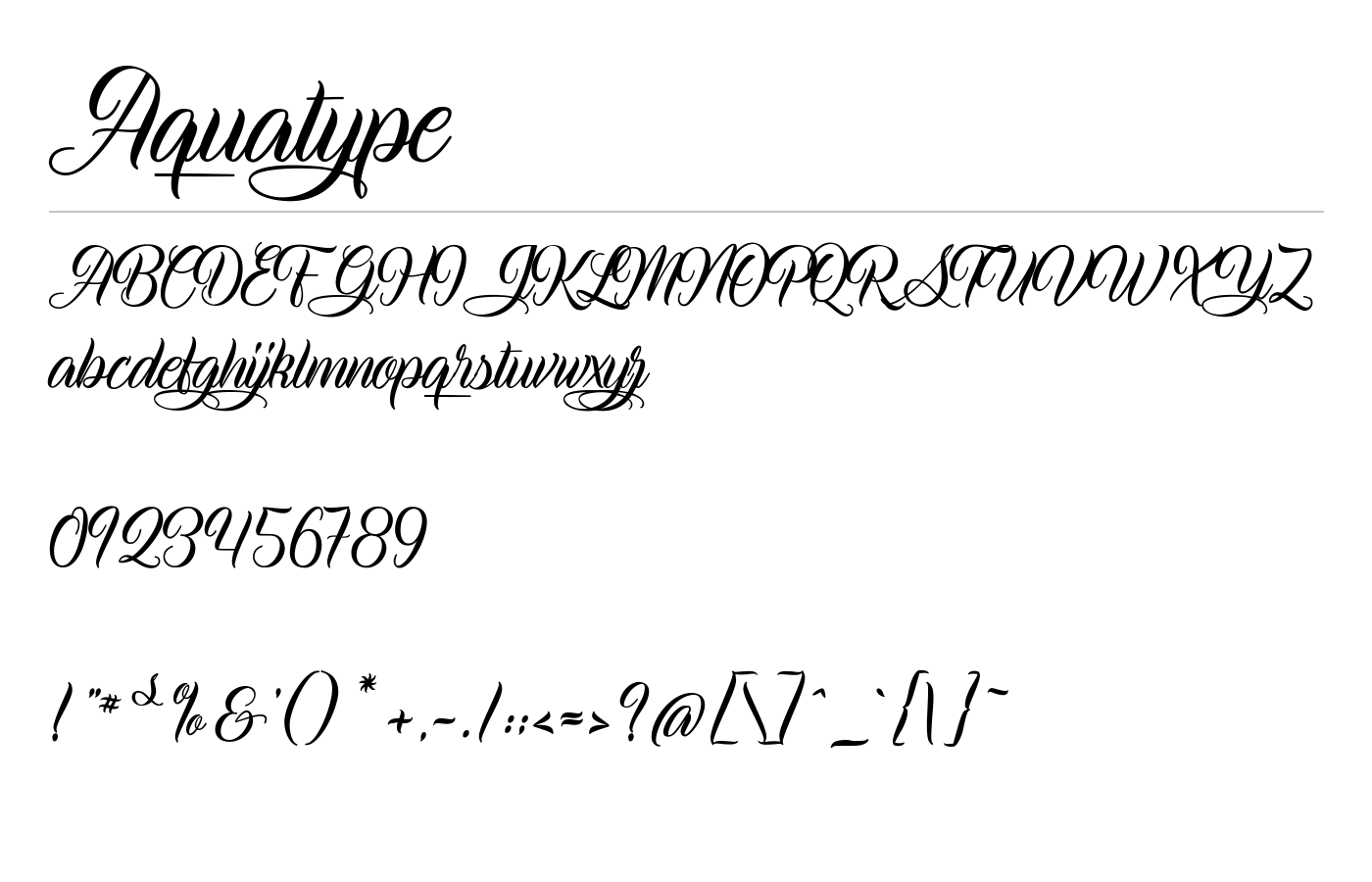
Aquatype is an elegant script font with a refined, flowing style that features delicate, calligraphic strokes and graceful swashes, giving it a sophisticated and artistic feel. Its slender, slightly condensed letterforms with distinctive loops and flourishes make it perfect for luxury branding, invitations, and stylish headlines where an expressive, classy touch is desired. This font’s romantic personality shines in designs that aim to impress with elegance and charm.
Aquatype Font
About Aquatype Font